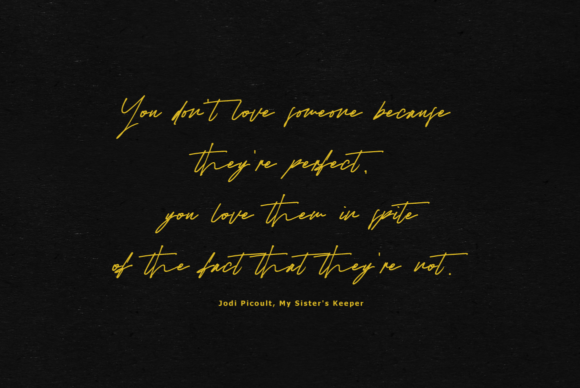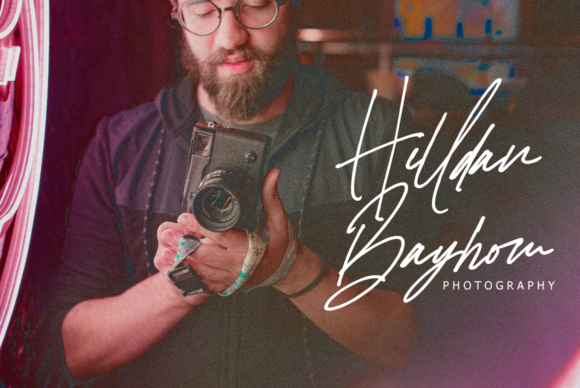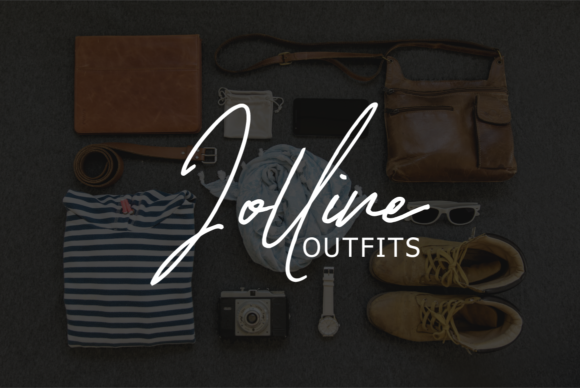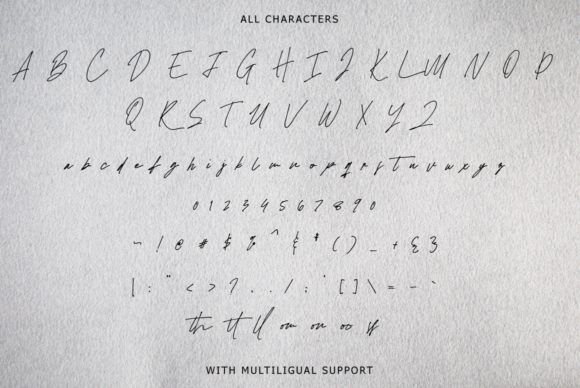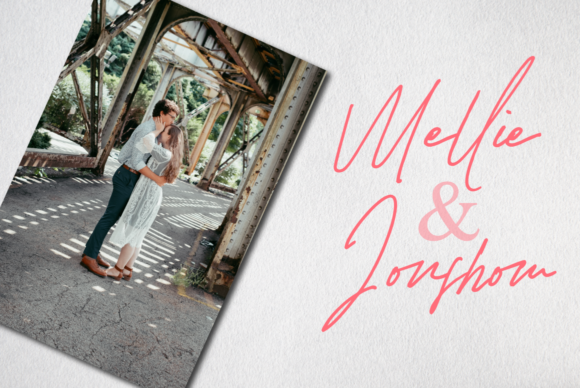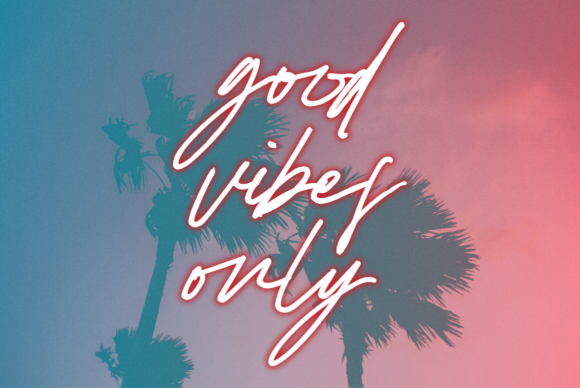
About Loremita Signature Font
Loremita Signature is a stylish and relaxed handwritten font. It is the best choice for creating eye catching logos, branding and quotes. Every letter has a unique and beautiful touch, which will make your design come alive!